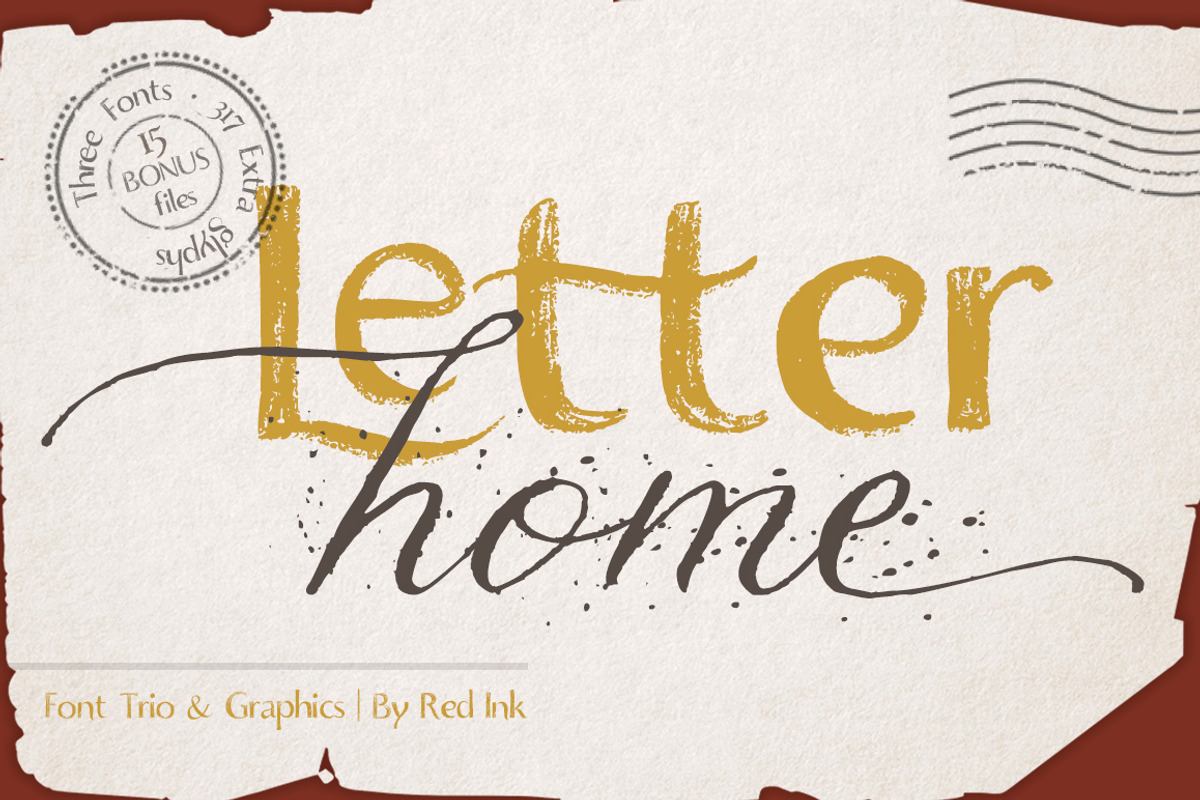
Warm, handcrafted, and full of charm, Letter Home. Font Trio + Graphics Free Download is a delightful typeface set that includes three complementary fonts and a collection of matching graphics. Perfect for stationery, invitations, logos, quotes, and cozy lifestyle branding, this bundle brings a heartfelt, homemade touch to any project.
The trio typically features a script, a serif, and a sans style, allowing for creative layering and beautifully balanced typography. Paired with the included illustrations, Letter Home helps you craft designs that feel personal, welcoming, and visually unique.